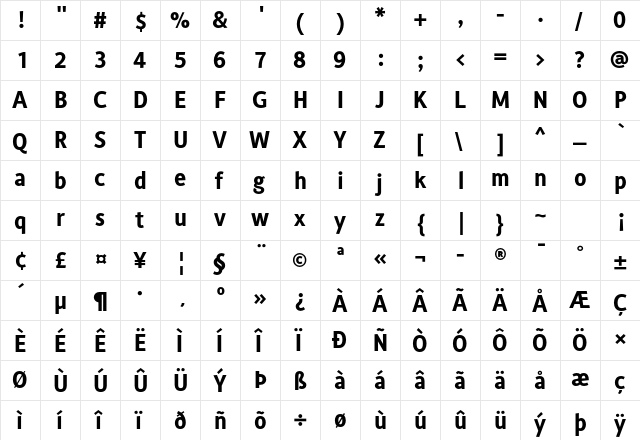
Alber Bold
Design Context for Alber Typeface
Alber is a composed and adaptable typeface that performs quietly and consistently across a wide range of design contexts. Its bold stroke weight gives it real presence on the page.
Pro Tip: Pair Alber with a font of contrasting weight or personality to build a more expressive typographic hierarchy.